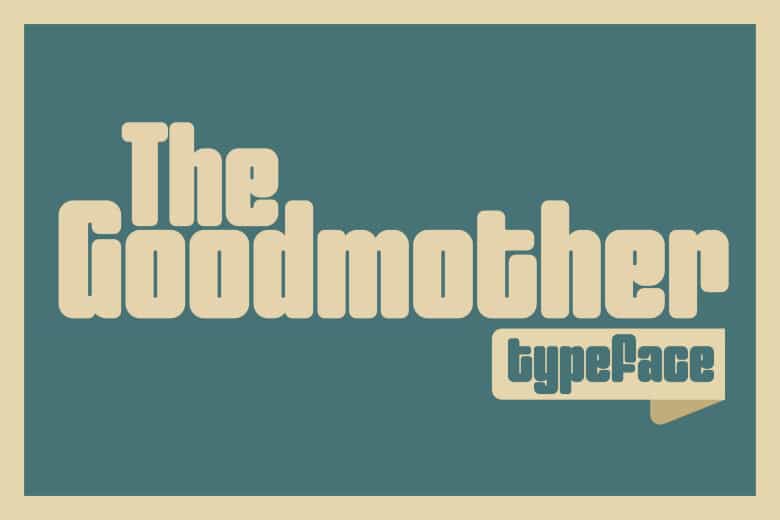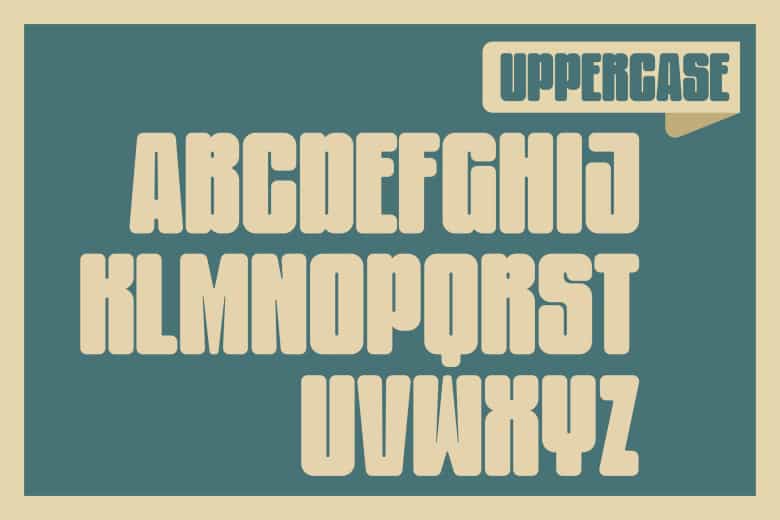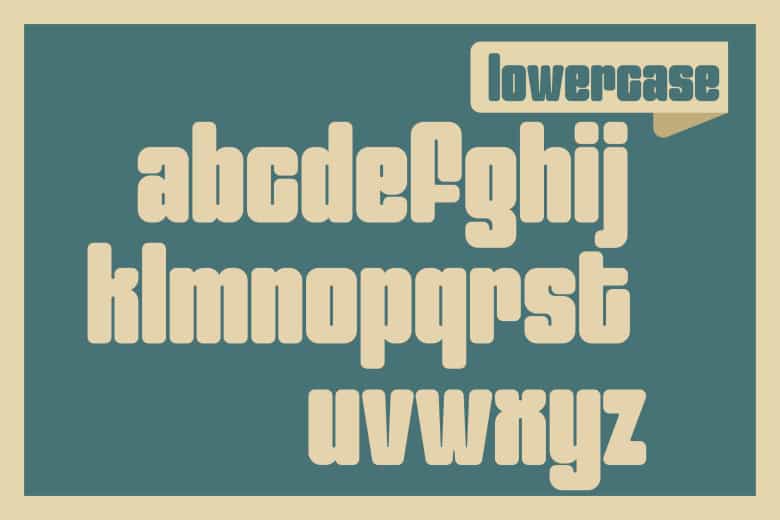
Discover The Goodmother Font, part of the Sans Serif Display collection—a versatile and unique font perfect for adding a personal touch to your projects. Download it for free and enjoy crafting designs with style, from invitations to social media posts. This font is available exclusively for personal use, giving you the freedom to create without limits. Unlock your creativity with The Goodmother Font today!
The Goodmother font is an eye-catching condensed sans serif font with vintage yet modern styling, available in two styles, slant and regular, featuring soft edges for an easily legible experience. Use it in any of your work to make an impressionful statement! Its easy reading style will leave a lasting impression.